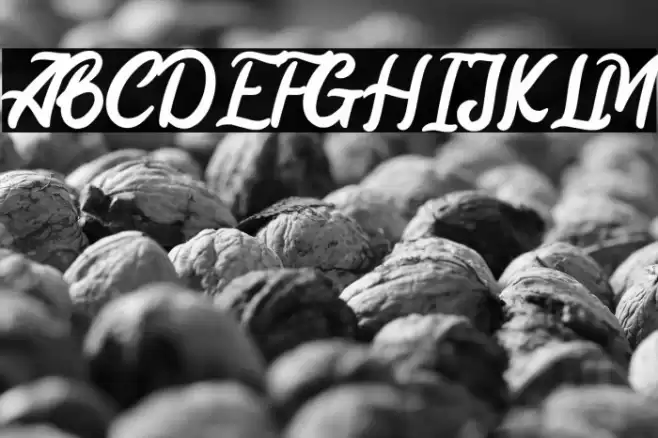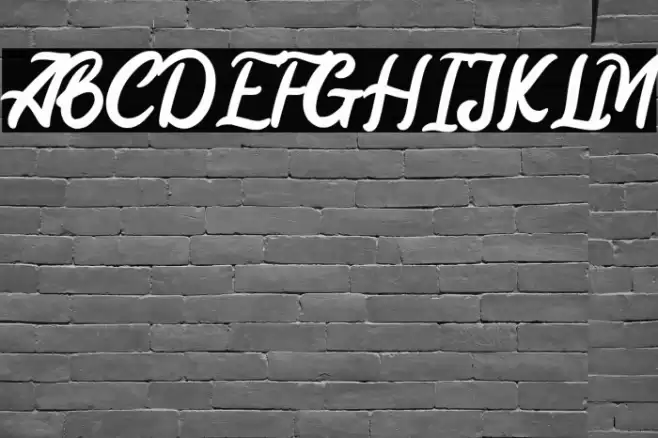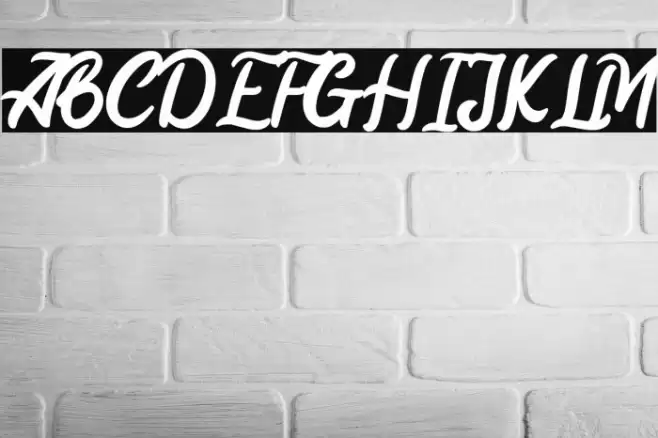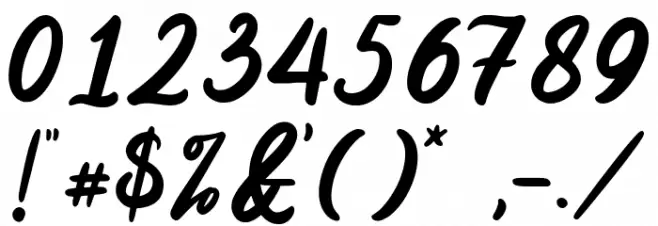
Mayrisand Demo Version Font
Mayrisand Demo Version Description
This font features a bold and flowing script style, characterized by its smooth, cursive strokes and elegant curves. The uppercase letters are prominent and slightly slanted, giving a sense of movement and fluidity. The lowercase letters maintain a consistent flow, with rounded edges and a harmonious balance between each character. The numerals are clear and legible, matching the overall script style. Special characters are well-integrated, maintaining the same flowing aesthetic. This font exudes a sense of elegance and sophistication, making it suitable for creative and decorative applications.
A bold, flowing script font with elegant curves and smooth strokes from Uncategorized fonts.
- Font: Mayrisand Demo Version
- Proposed Projects: Ideal for wedding invitations, greeting cards, branding, and logo design.
- Use Case: Logos, Headlines, Invitations